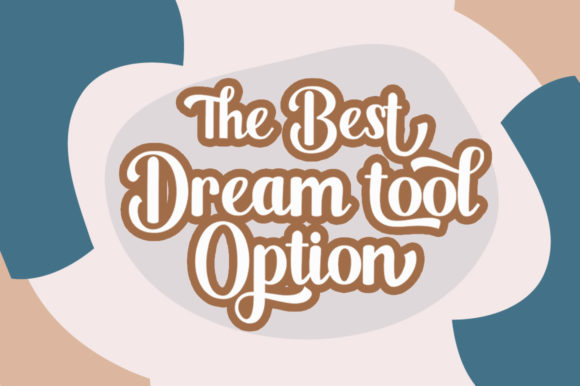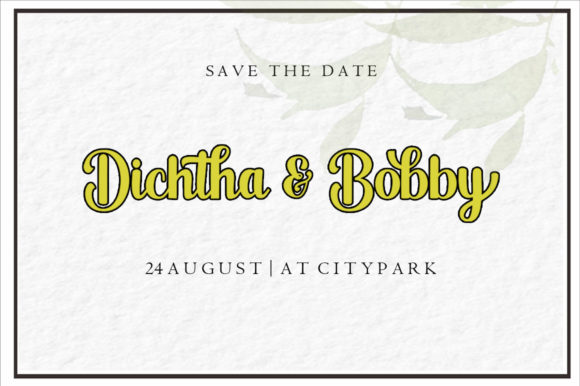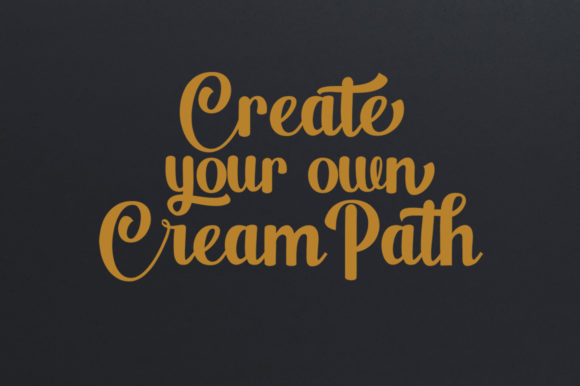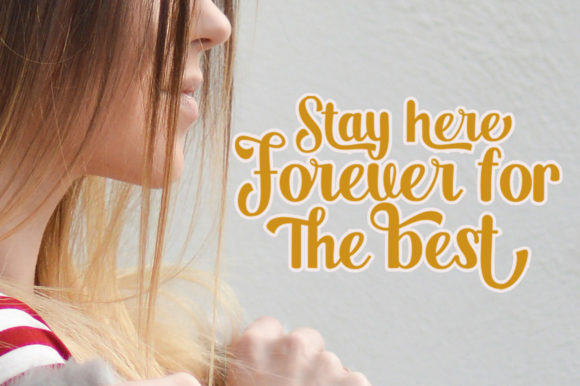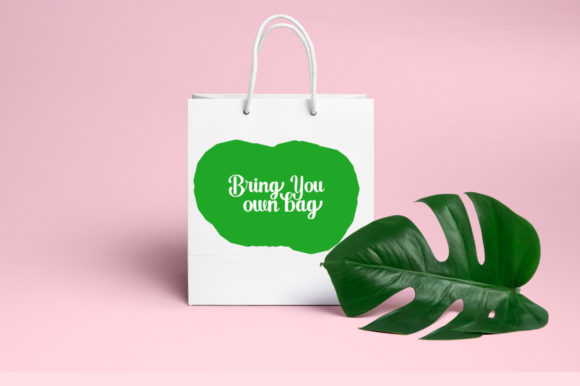
The Geantdum Font
About The Geantdum Font
The Geantdum is a beautiful, vintage styled and strong lettered handwritten font. Whether you’re using it for crafting, digital designing, presentations or greeting cards making, it’s perfect!